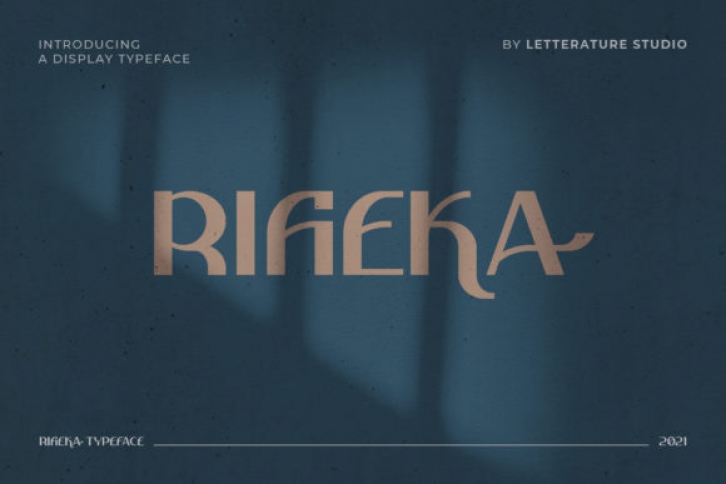
Rifieka is a cool, bold and trendy display font. Masterfully designed to become a true favorite, this font has the potential to bring each of your creative ideas to the highest level!